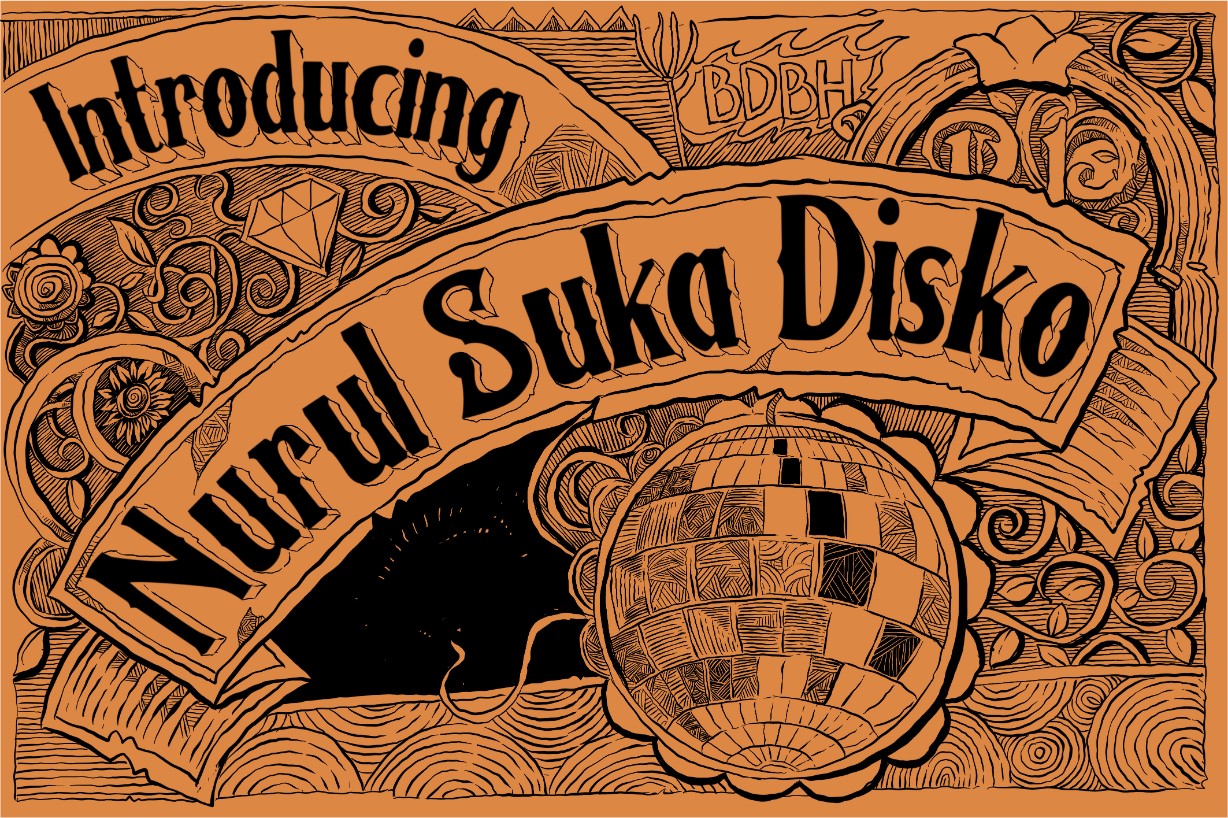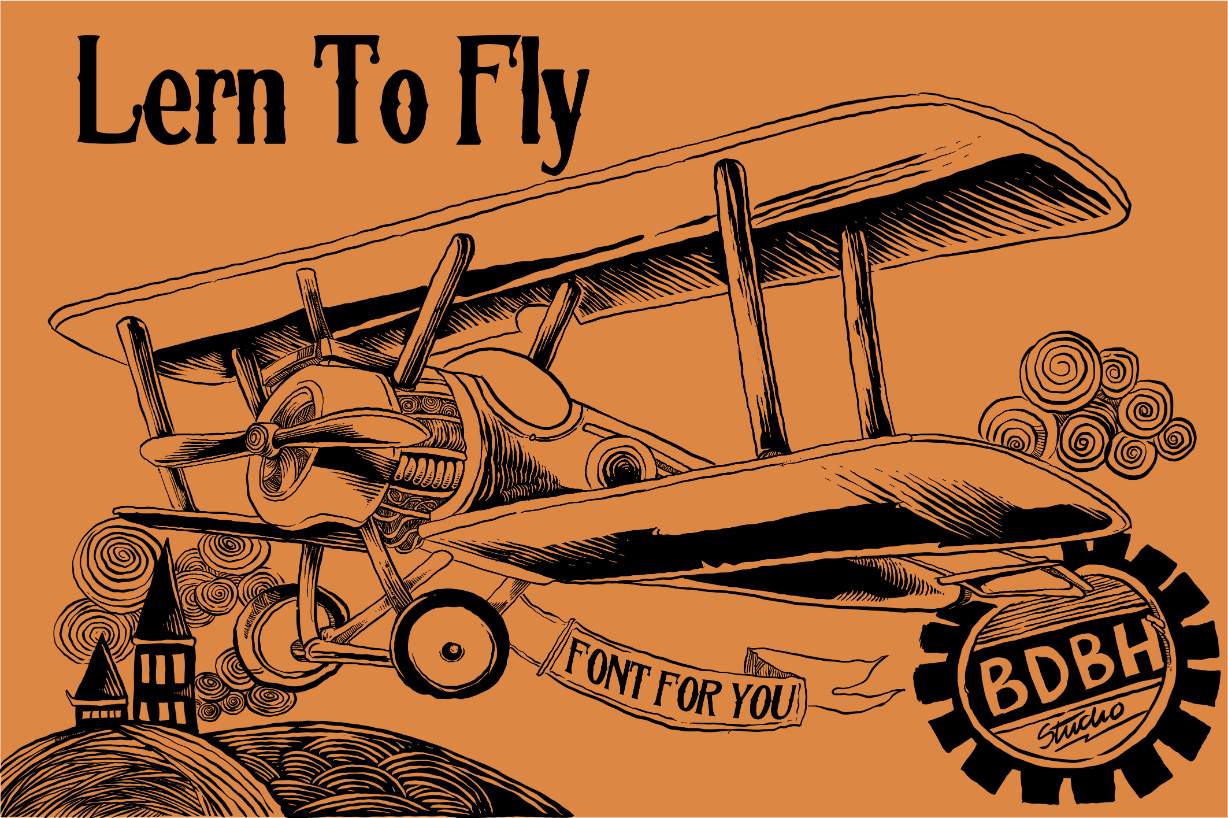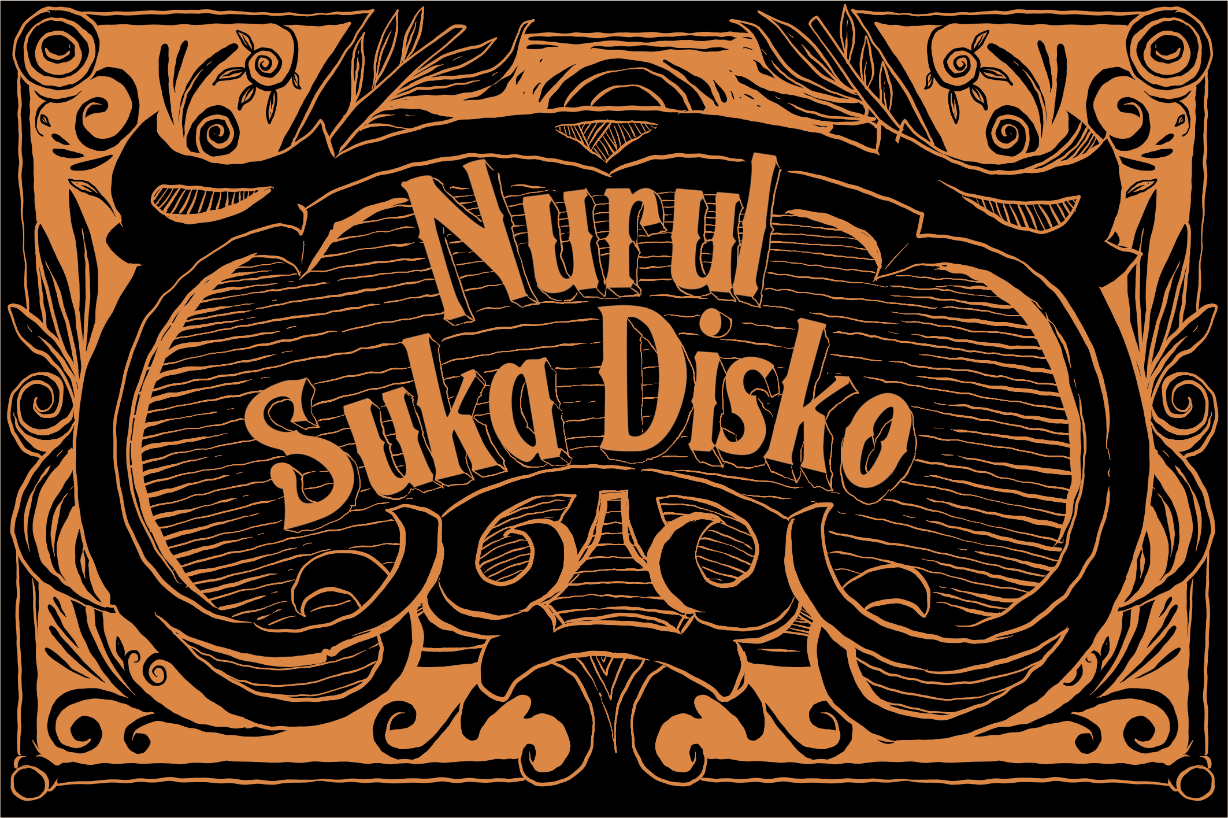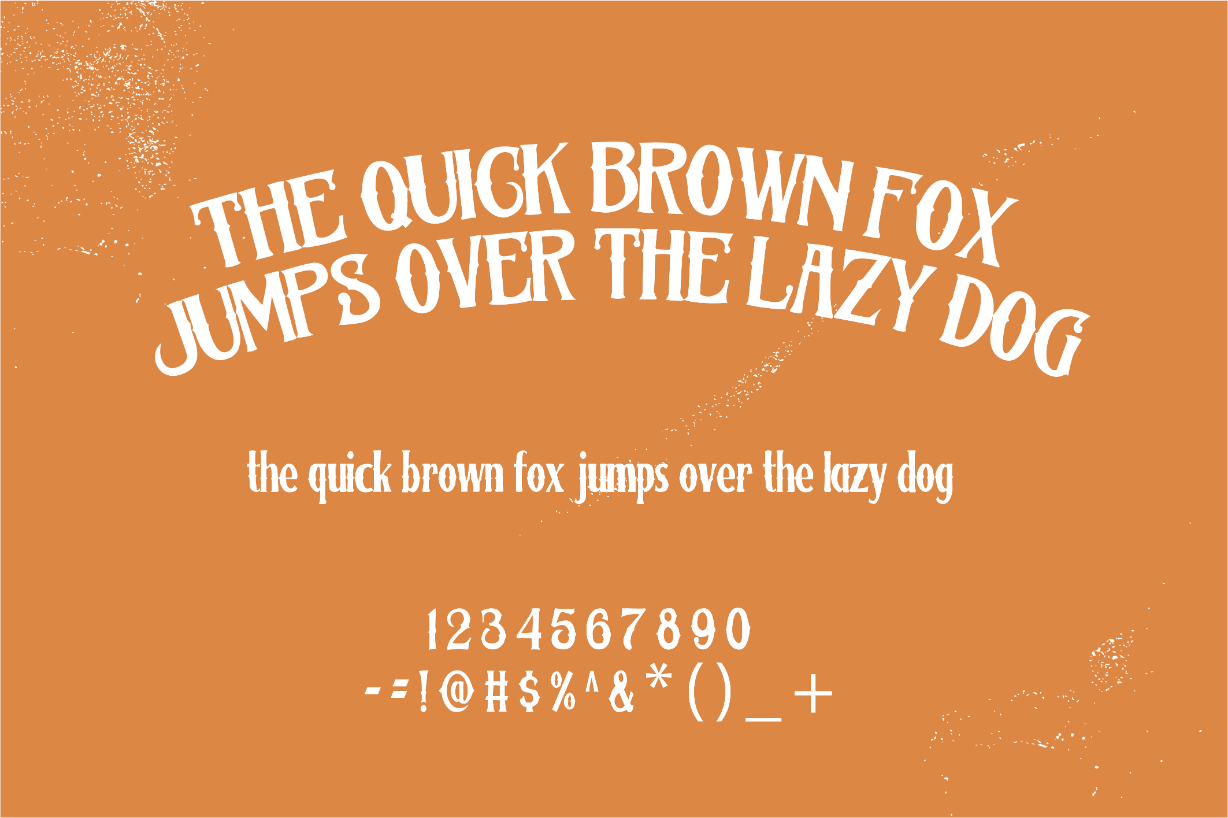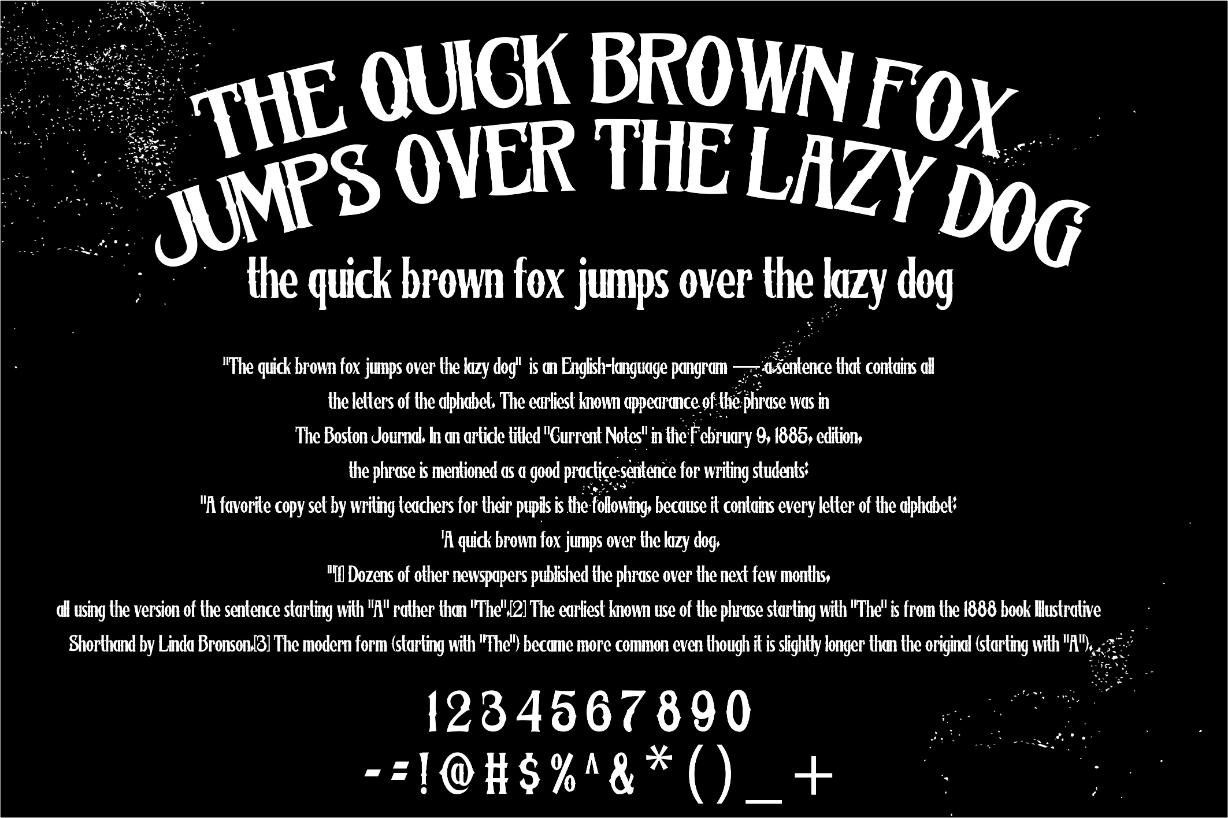
Nurul Suka Disko Font
About Nurul Suka Disko Font
NURUL SUKA DISKO is a victorian style, blackletter font with a nice heavy metal touch. It is ideal for any design that requires a firm touch. Add it confidently to your projects, and you will love the results.